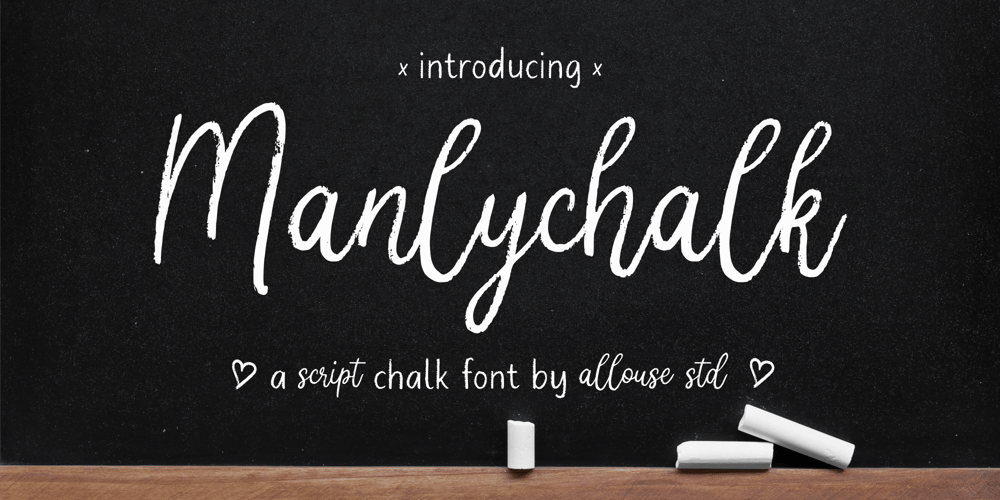
Manlychalk
Manlychalk font
Manlychalk Font Family was designed by Fachrizal Yusuf and published by Allouse Studio. Manlychalk contains 1 styles and family package options. Proudly Presenting, Manlychalk A Script Chalk Font.Manlychalk is perfect for any titles, logo, product packaging, branding project, megazine, social media, wedding, or just used to express words above the background.Manlychalk also come with Multi-Lingual Support.Enjoy the font, feel free to comment or feedback, send me PM or email. Thank You!